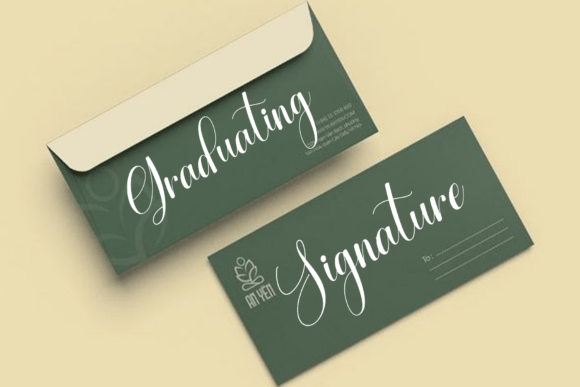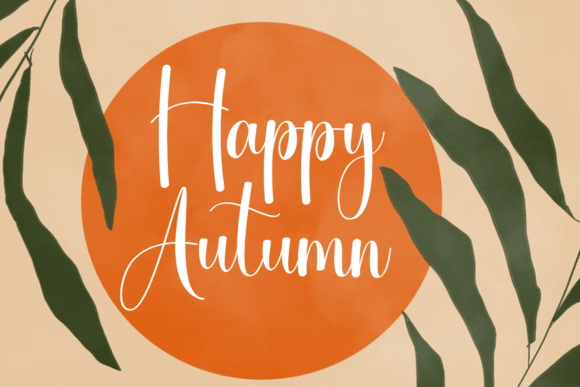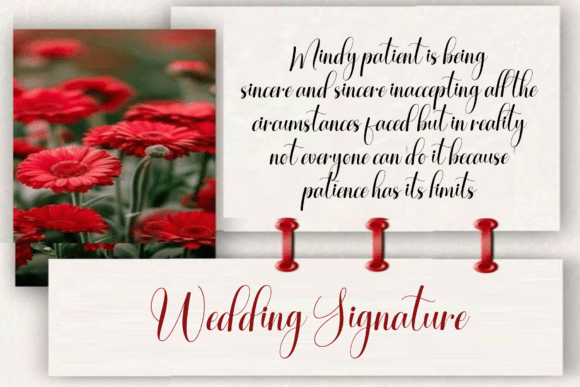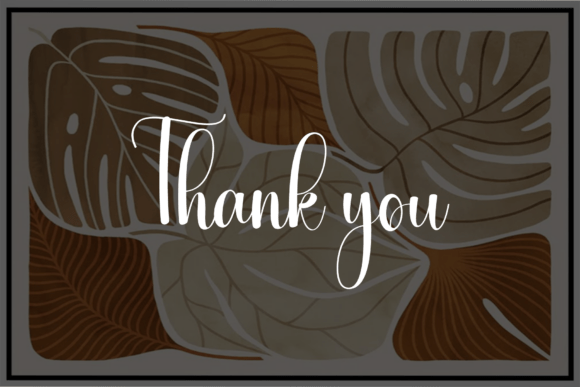
The Embroidery Font: A Masterclass in Elegance and Artistry
I’ll never forget the design project that led me to discover the Embroidery font. I was working on a branding campaign for a boutique bakery, and I needed a typeface that would convey a sense of luxury, artistry, and warmth. After hours of scouring font libraries and trying out different combinations, I stumbled upon Embroidery – and it was love at first sight! 💫
So, what makes Embroidery so special? Let’s dive into the good stuff! 😊
- ✨ Exquisite craftsmanship: Embroidery’s high-contrast visual rhythm and sweeping ascenders make it look like a bespoke piece of art.
- ✅ Perfect for luxury branding: Its sophisticated, calligraphic style is ideal for artisanal food branding, boutique product packaging, and upscale lifestyle marketing.
- 🌟 Versatile and expressive: With its range of OpenType features and stylistic alternates, Embroidery can be tailored to suit various design contexts.
Of course, no font is perfect, and Embroidery has a few quirks to keep in mind:
- 🤔 Limited use in body text: Due to its high-contrast nature, Embroidery works best as a display font or in short paragraphs.
- ⚠️ Glyph compatibility: Some glyphs might not work seamlessly with older software or browsers, so be sure to test compatibility before finalizing your design.
The Story Behind Embroidery
Embroidery was inspired by the traditional craftsmanship of hand embroidery and the art of calligraphy. Its creator aimed to capture the essence of bespoke, artisanal design in a digital font, perfect for luxury branding and creative projects.
| What makes Embroidery suitable for luxury branding? | Embroidery’s sophisticated, calligraphic style and high-contrast visual rhythm evoke a sense of artistry and exclusivity, making it perfect for high-end branding and marketing. |
| Can I use Embroidery for body text? | While Embroidery is primarily designed as a display font, it can be used in short paragraphs or captions. However, its high-contrast nature may make it less suitable for extended body text. |
| Is Embroidery compatible with older software and browsers? | Embroidery is designed to work with modern software and browsers. However, some glyphs might not work seamlessly with older systems, so be sure to test compatibility before finalizing your design. |